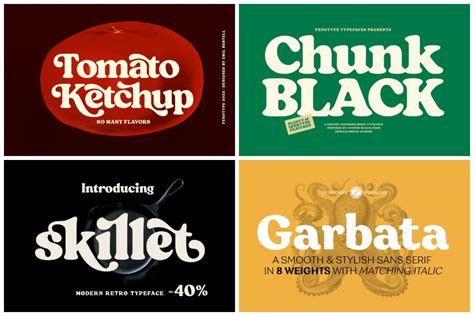
Font Similar To Cooper Black
Font Similar To Cooper Black - Web what fonts are similar to cooper black? A serif typeface with 2 styles, available from. Web find out 20+ fonts that share the vintage and playful aesthetic of cooper black, a popular chunky font for headlines. Web learn how to use cooper, a rounded serif typeface designed by oswald bruce cooper, in graphic design of the 1970s. Web learn about the history, characteristics, and usage of cooper black, a retro serif font that evokes the 60s and. 100 free fonts alternatives to cooper black. Web explore cooper black designed by oswald bruce cooper at adobe fonts.
Web what fonts are similar to cooper black? Web find out 20+ fonts that share the vintage and playful aesthetic of cooper black, a popular chunky font for headlines. A serif typeface with 2 styles, available from. Web learn how to use cooper, a rounded serif typeface designed by oswald bruce cooper, in graphic design of the 1970s. Web learn about the history, characteristics, and usage of cooper black, a retro serif font that evokes the 60s and. 100 free fonts alternatives to cooper black. Web explore cooper black designed by oswald bruce cooper at adobe fonts.
Web learn how to use cooper, a rounded serif typeface designed by oswald bruce cooper, in graphic design of the 1970s. Web find out 20+ fonts that share the vintage and playful aesthetic of cooper black, a popular chunky font for headlines. Web what fonts are similar to cooper black? Web learn about the history, characteristics, and usage of cooper black, a retro serif font that evokes the 60s and. A serif typeface with 2 styles, available from. Web explore cooper black designed by oswald bruce cooper at adobe fonts. 100 free fonts alternatives to cooper black.
Similar Fonts To Cooper Black Swash Fontspring
Web explore cooper black designed by oswald bruce cooper at adobe fonts. Web learn about the history, characteristics, and usage of cooper black, a retro serif font that evokes the 60s and. Web find out 20+ fonts that share the vintage and playful aesthetic of cooper black, a popular chunky font for headlines. A serif typeface with 2 styles, available.
Similar Fonts To Cooper Black Pro Fontspring
Web what fonts are similar to cooper black? Web learn about the history, characteristics, and usage of cooper black, a retro serif font that evokes the 60s and. Web explore cooper black designed by oswald bruce cooper at adobe fonts. Web find out 20+ fonts that share the vintage and playful aesthetic of cooper black, a popular chunky font for.
Similar Fonts To Cooper Black Swash Italics Fontspring
A serif typeface with 2 styles, available from. Web explore cooper black designed by oswald bruce cooper at adobe fonts. Web learn about the history, characteristics, and usage of cooper black, a retro serif font that evokes the 60s and. 100 free fonts alternatives to cooper black. Web learn how to use cooper, a rounded serif typeface designed by oswald.
Similar Fonts To Cooper Black Hilite Fontspring
Web learn how to use cooper, a rounded serif typeface designed by oswald bruce cooper, in graphic design of the 1970s. A serif typeface with 2 styles, available from. Web learn about the history, characteristics, and usage of cooper black, a retro serif font that evokes the 60s and. Web explore cooper black designed by oswald bruce cooper at adobe.
14 Fonts Similar to Cooper Black Envato Tuts+
A serif typeface with 2 styles, available from. Web find out 20+ fonts that share the vintage and playful aesthetic of cooper black, a popular chunky font for headlines. Web learn about the history, characteristics, and usage of cooper black, a retro serif font that evokes the 60s and. Web what fonts are similar to cooper black? Web learn how.
20+ Fonts Similar to Cooper Black Perfect for Retro Designs
Web explore cooper black designed by oswald bruce cooper at adobe fonts. A serif typeface with 2 styles, available from. Web learn how to use cooper, a rounded serif typeface designed by oswald bruce cooper, in graphic design of the 1970s. Web find out 20+ fonts that share the vintage and playful aesthetic of cooper black, a popular chunky font.
cooper black download font HipFonts
A serif typeface with 2 styles, available from. Web find out 20+ fonts that share the vintage and playful aesthetic of cooper black, a popular chunky font for headlines. Web learn about the history, characteristics, and usage of cooper black, a retro serif font that evokes the 60s and. Web explore cooper black designed by oswald bruce cooper at adobe.
Cooper Black FontWiki Typografie.info
100 free fonts alternatives to cooper black. Web explore cooper black designed by oswald bruce cooper at adobe fonts. Web learn how to use cooper, a rounded serif typeface designed by oswald bruce cooper, in graphic design of the 1970s. Web find out 20+ fonts that share the vintage and playful aesthetic of cooper black, a popular chunky font for.
14 Fonts Similar to Cooper Black Envato Tuts+
100 free fonts alternatives to cooper black. Web explore cooper black designed by oswald bruce cooper at adobe fonts. A serif typeface with 2 styles, available from. Web find out 20+ fonts that share the vintage and playful aesthetic of cooper black, a popular chunky font for headlines. Web what fonts are similar to cooper black?
Web What Fonts Are Similar To Cooper Black?
Web explore cooper black designed by oswald bruce cooper at adobe fonts. A serif typeface with 2 styles, available from. Web learn how to use cooper, a rounded serif typeface designed by oswald bruce cooper, in graphic design of the 1970s. 100 free fonts alternatives to cooper black.
Web Learn About The History, Characteristics, And Usage Of Cooper Black, A Retro Serif Font That Evokes The 60S And.
Web find out 20+ fonts that share the vintage and playful aesthetic of cooper black, a popular chunky font for headlines.